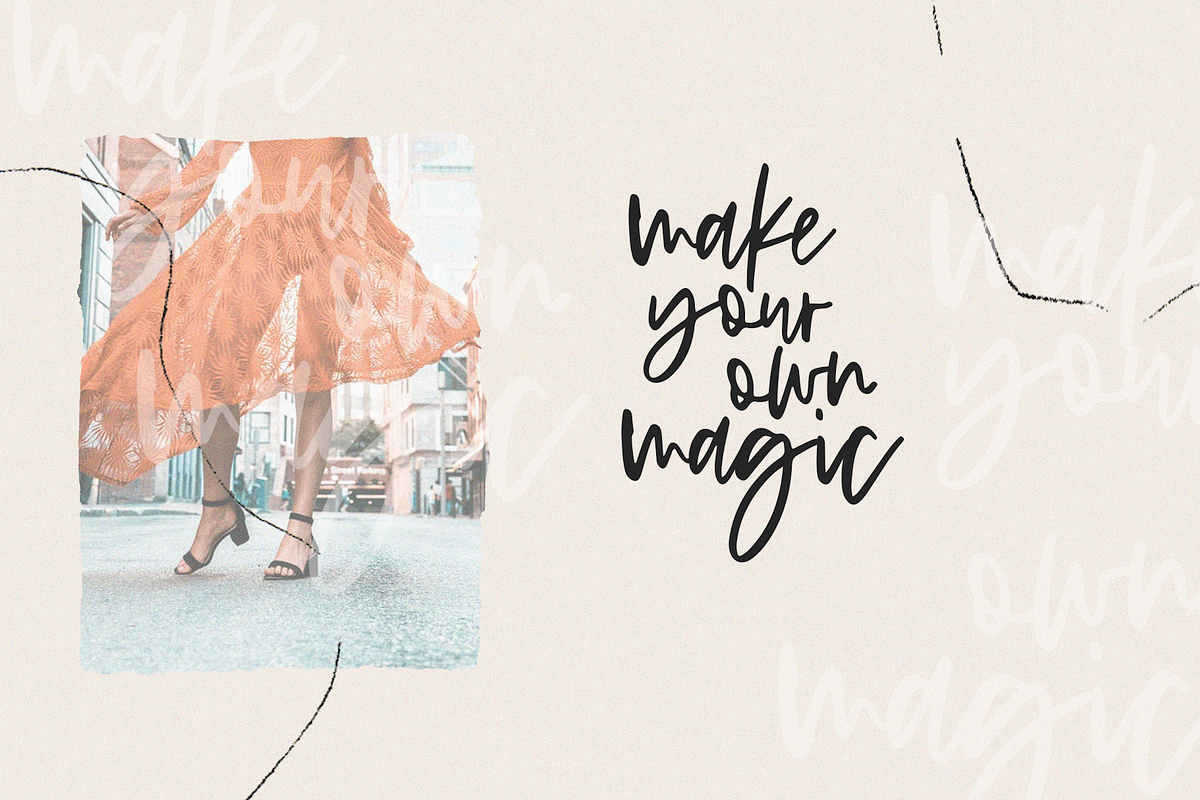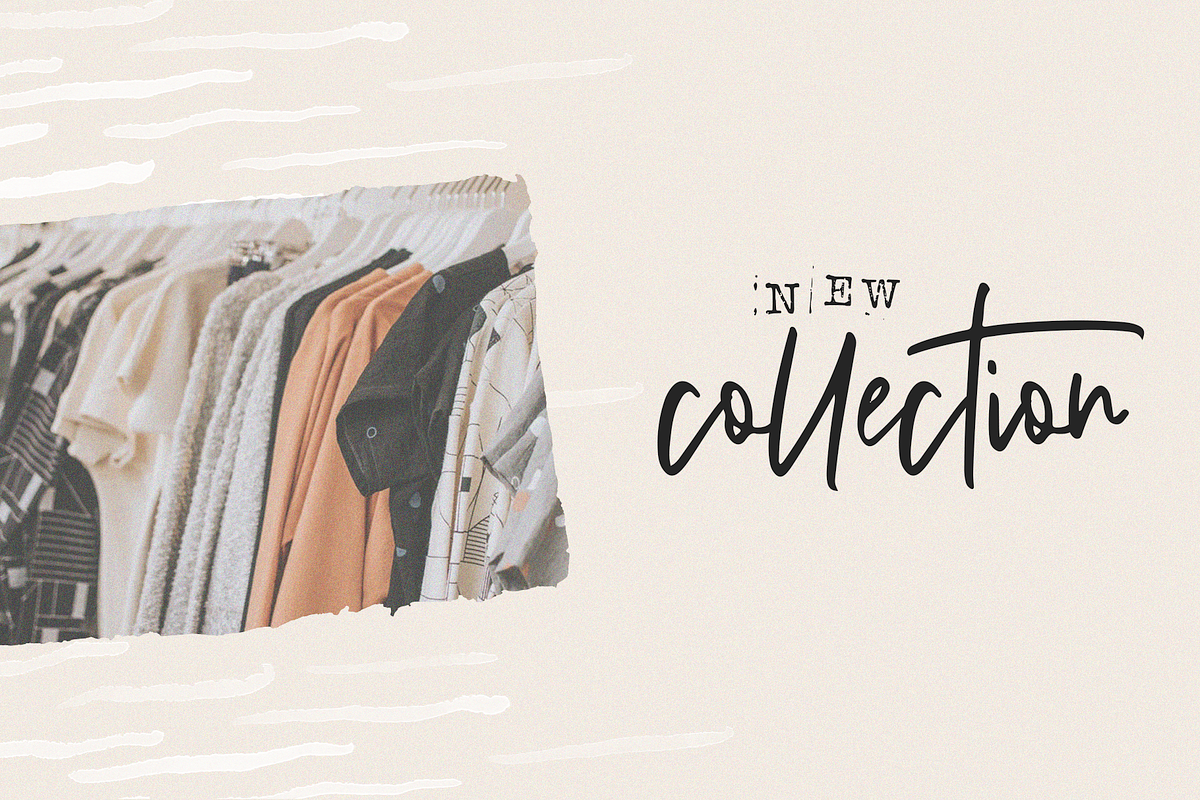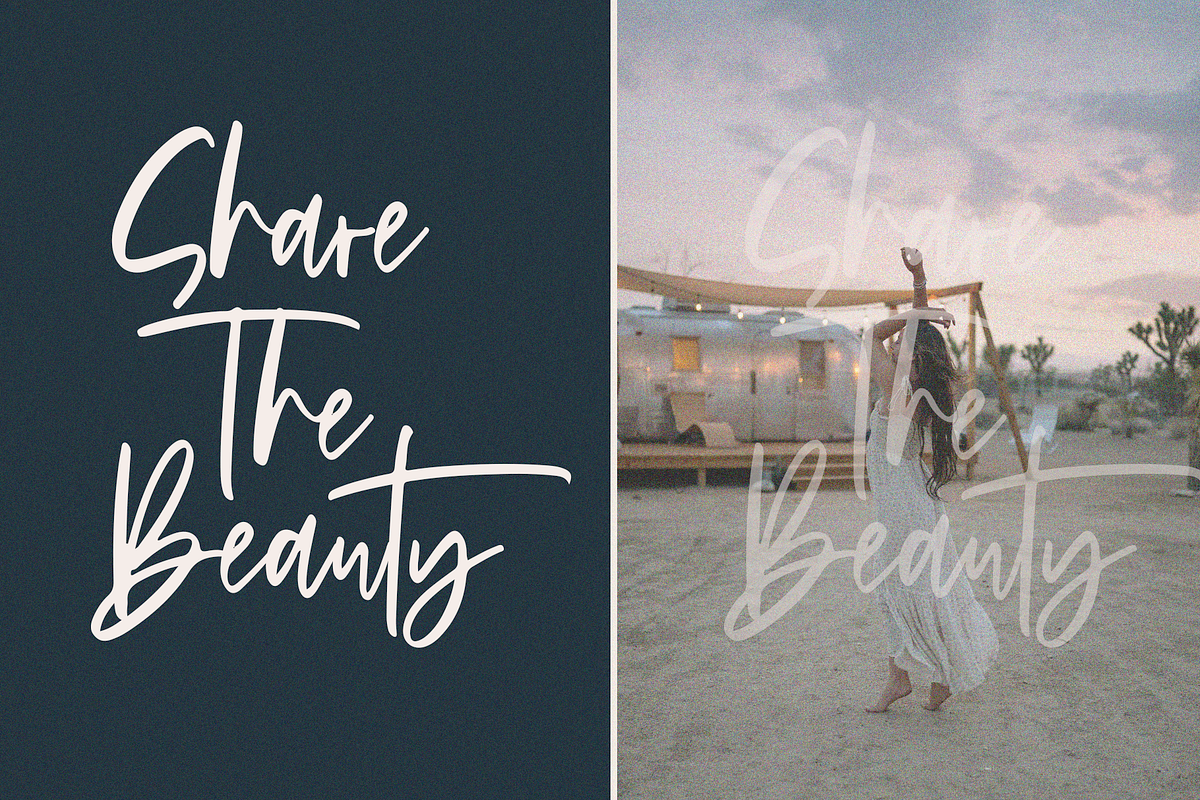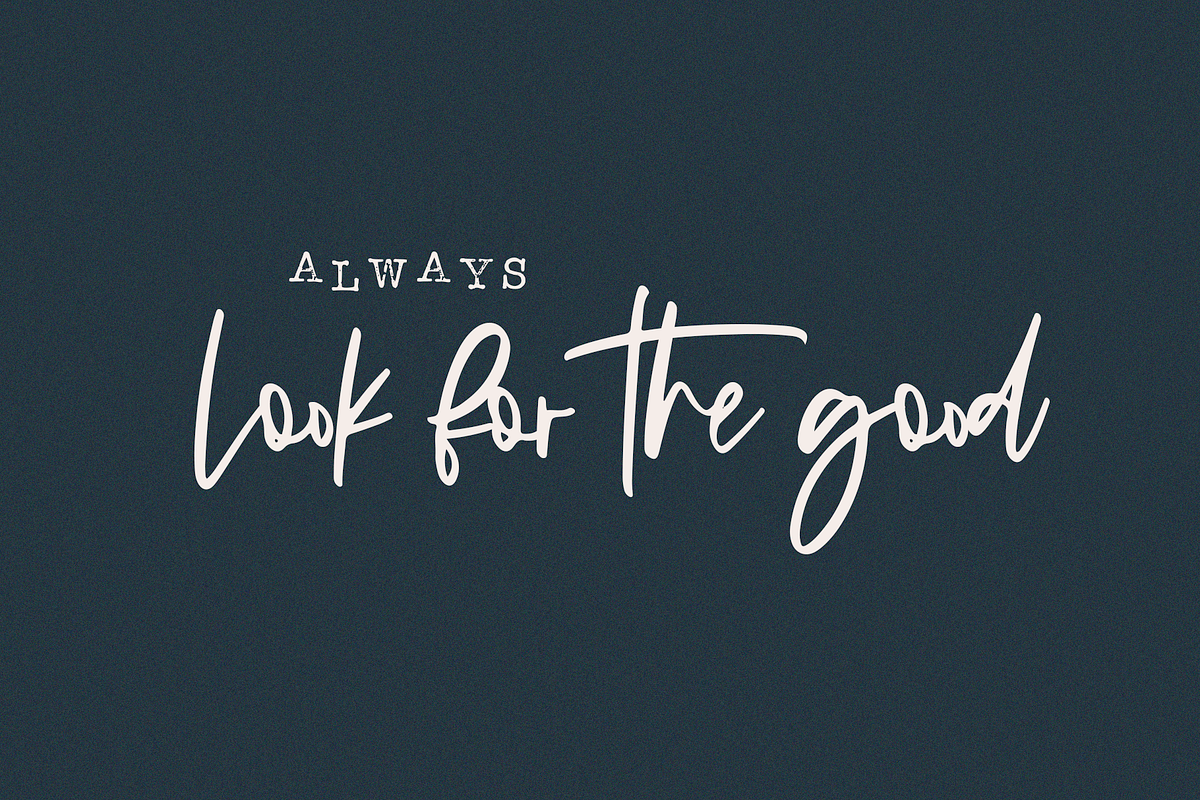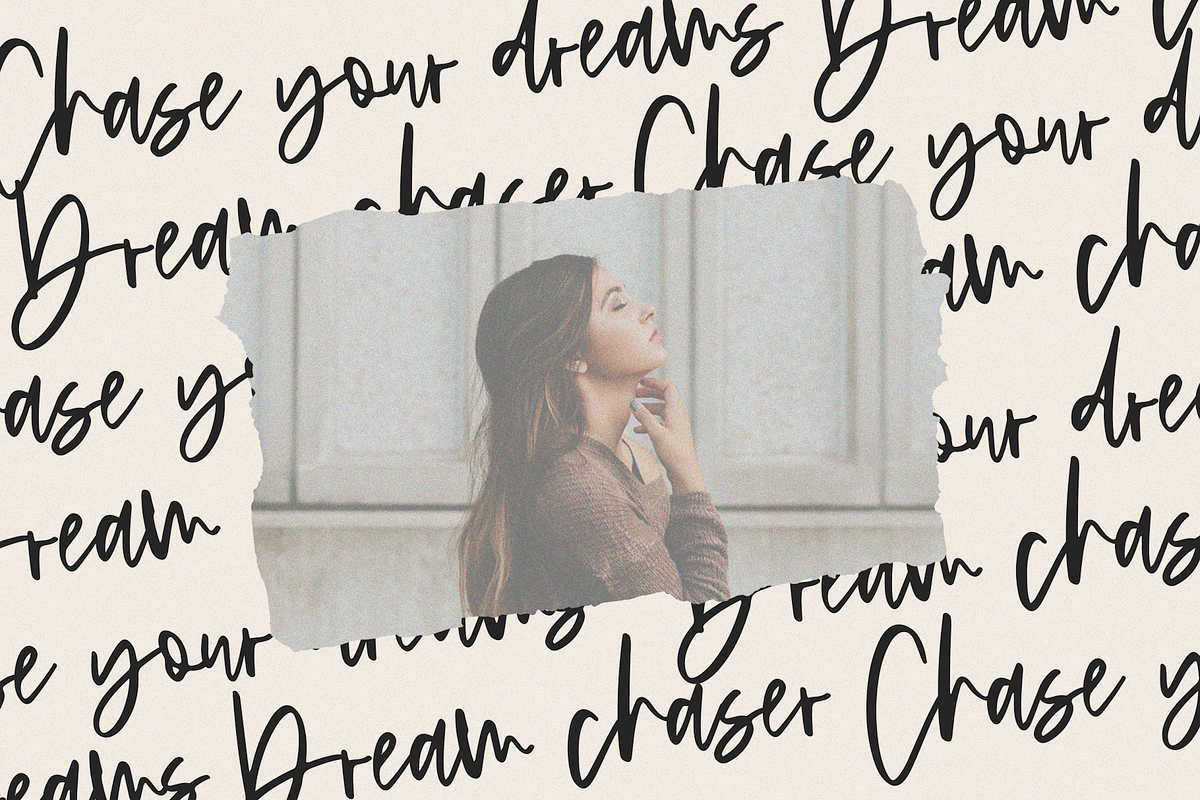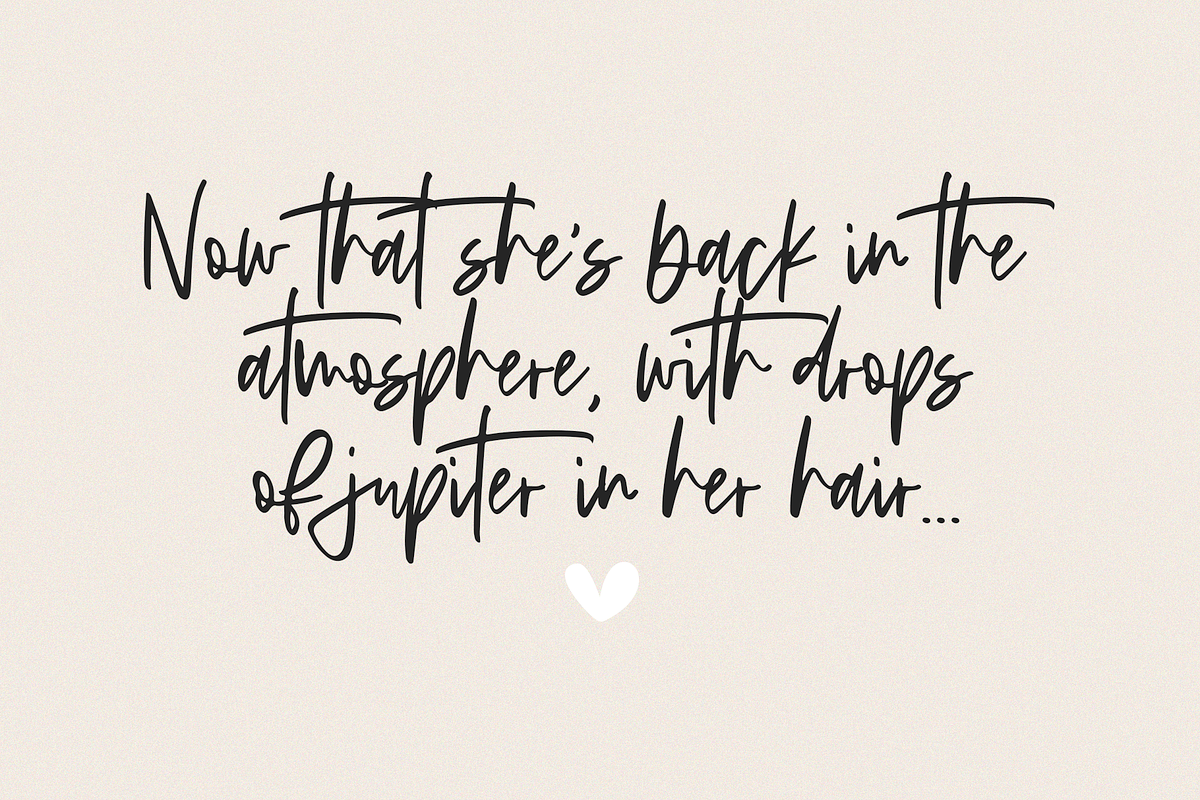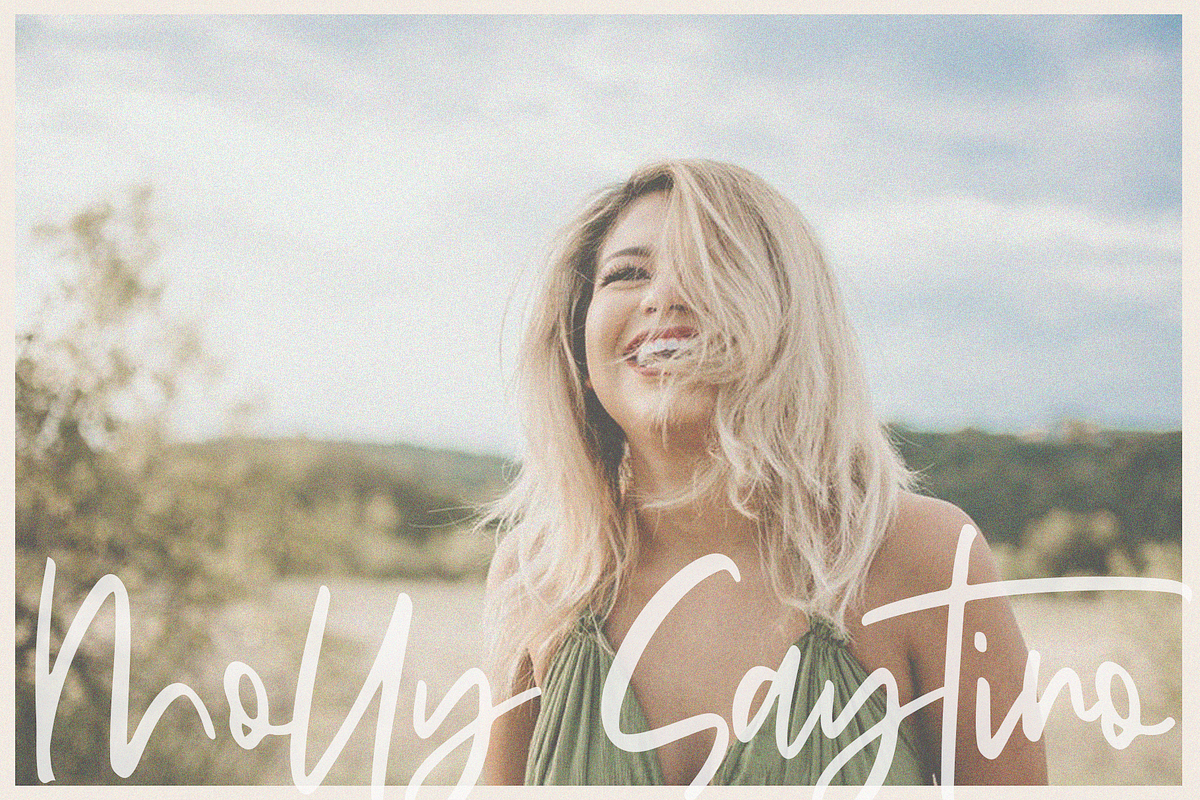
Sandcastle - Handwritten Script Font
Sandcastle is a chic handwritten script font.
This font is perfect for modern projects, headings, blogs, logos, brandings, invitations and more!
Accent characters are included.
Nice looking font for small to medium sized printing, but large sized printing and use with vinyl reveals several defects, mostly inverted angles on some nodes that create a loop instead of a smooth transition. Not a huge problem if you know how to fix them. Overall, I am satisfied with the purchase.